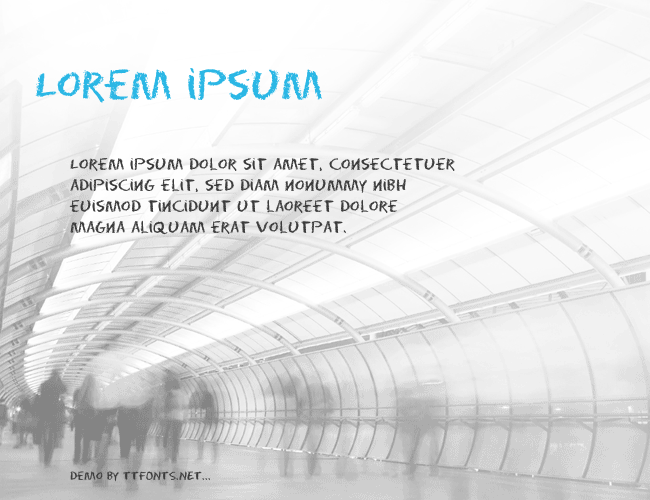
Eraser Dust Font . Download eraser dust for free. View sample text, character map, user rating and review for eraser dust. Eraser dust font is free for both personel and commercial. Eraser font | dafont.com english français español deutsch italiano português. The eraser dust font has been downloaded 205,458 times. Eraser dust font free download. Download and install the eraser dust font by david rakowski. In script > trash 887,042 downloads (74 yesterday) 5 comments 2 font files. See how to download eraser dust for free! A great choice for highlighting your design elements. Eraser dust font is a script, trash font designed by david rakowski. Eraser dust à by david rakowski.
Eraser dust font is a script, trash font designed by david rakowski. The eraser dust font has been downloaded 205,458 times. View sample text, character map, user rating and review for eraser dust. In script > trash 887,042 downloads (74 yesterday) 5 comments 2 font files. Eraser dust font free download. Eraser dust à by david rakowski. See how to download eraser dust for free! Eraser font | dafont.com english français español deutsch italiano português. A great choice for highlighting your design elements. Eraser dust font is free for both personel and commercial.
Eraser Dust Font A great choice for highlighting your design elements. Eraser dust à by david rakowski. A great choice for highlighting your design elements. See how to download eraser dust for free! Download and install the eraser dust font by david rakowski. In script > trash 887,042 downloads (74 yesterday) 5 comments 2 font files. View sample text, character map, user rating and review for eraser dust. Eraser font | dafont.com english français español deutsch italiano português. Eraser dust font free download. The eraser dust font has been downloaded 205,458 times. Eraser dust font is a script, trash font designed by david rakowski. Eraser dust font is free for both personel and commercial. Download eraser dust for free.
Eraser Dust Font 1001 Free Fonts Eraser Dust Font Eraser dust font free download. In script > trash 887,042 downloads (74 yesterday) 5 comments 2 font files. Eraser font | dafont.com english français español deutsch italiano português. A great choice for highlighting your design elements. Eraser dust font is a script, trash font designed by david rakowski. Eraser dust à by david rakowski. Download eraser dust for free. Download. Eraser Dust Font.
Eraser Dust font Free fonts on Creazilla Eraser Dust Font Eraser dust à by david rakowski. Download eraser dust for free. A great choice for highlighting your design elements. The eraser dust font has been downloaded 205,458 times. Download and install the eraser dust font by david rakowski. See how to download eraser dust for free! In script > trash 887,042 downloads (74 yesterday) 5 comments 2 font files. Eraser. Eraser Dust Font.
Eraser Dust font by David Rakowski FontRiver Eraser Dust Font Eraser dust font is free for both personel and commercial. Download eraser dust for free. Eraser dust font free download. Download and install the eraser dust font by david rakowski. A great choice for highlighting your design elements. In script > trash 887,042 downloads (74 yesterday) 5 comments 2 font files. View sample text, character map, user rating and review. Eraser Dust Font.
Eraser Font Free Download Eraser Dust Font Download eraser dust for free. Download and install the eraser dust font by david rakowski. Eraser dust font is free for both personel and commercial. Eraser font | dafont.com english français español deutsch italiano português. A great choice for highlighting your design elements. The eraser dust font has been downloaded 205,458 times. Eraser dust font free download. In script >. Eraser Dust Font.
Eraser Dust Font In script > trash 887,042 downloads (74 yesterday) 5 comments 2 font files. Eraser dust font is a script, trash font designed by david rakowski. A great choice for highlighting your design elements. See how to download eraser dust for free! Download eraser dust for free. Eraser dust à by david rakowski. Download and install the eraser dust font by. Eraser Dust Font.
Eraser Dust truetype font Eraser Dust Font Download eraser dust for free. A great choice for highlighting your design elements. Eraser dust font is free for both personel and commercial. Eraser dust à by david rakowski. See how to download eraser dust for free! The eraser dust font has been downloaded 205,458 times. Eraser font | dafont.com english français español deutsch italiano português. Download and install the. Eraser Dust Font.